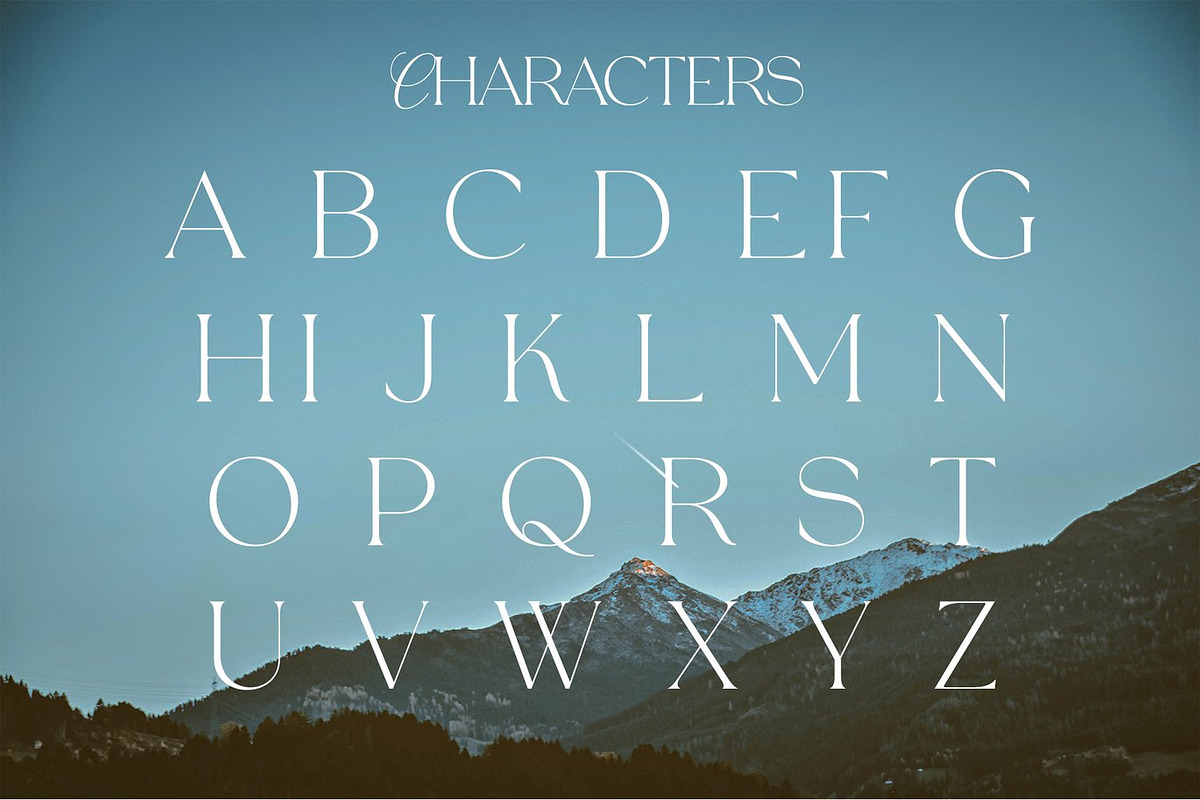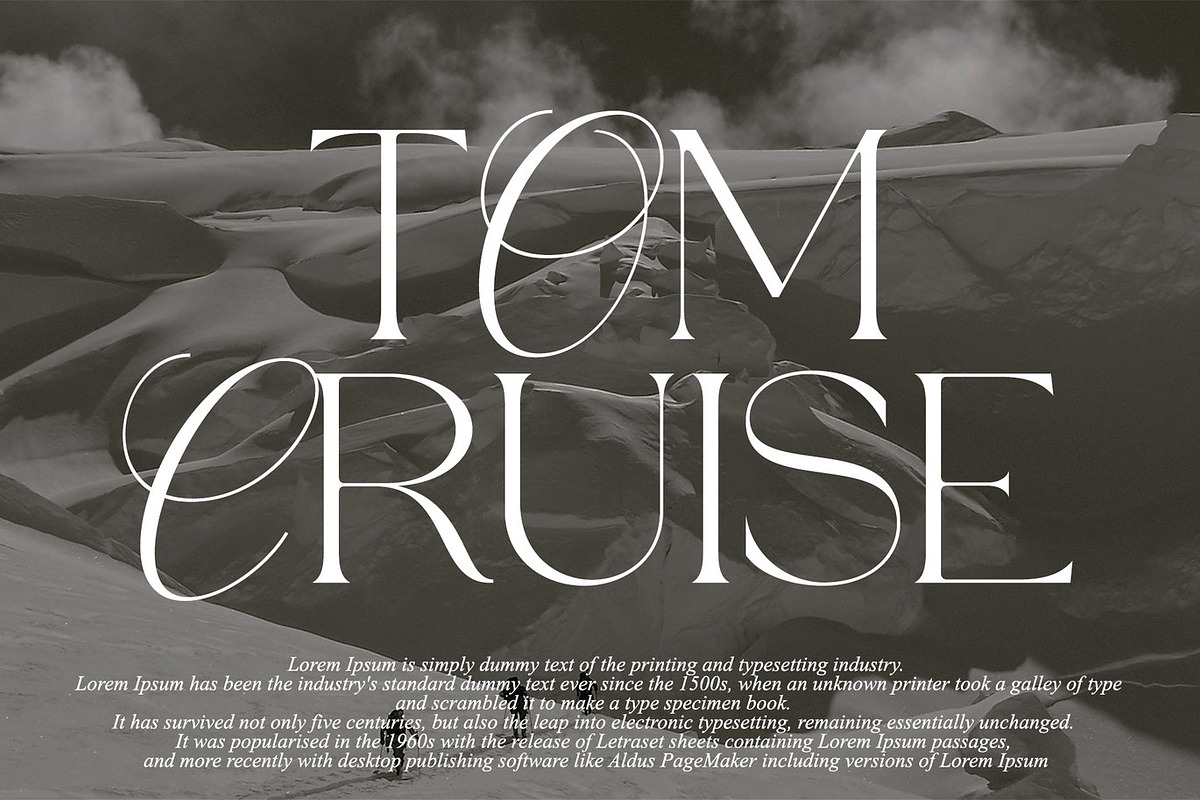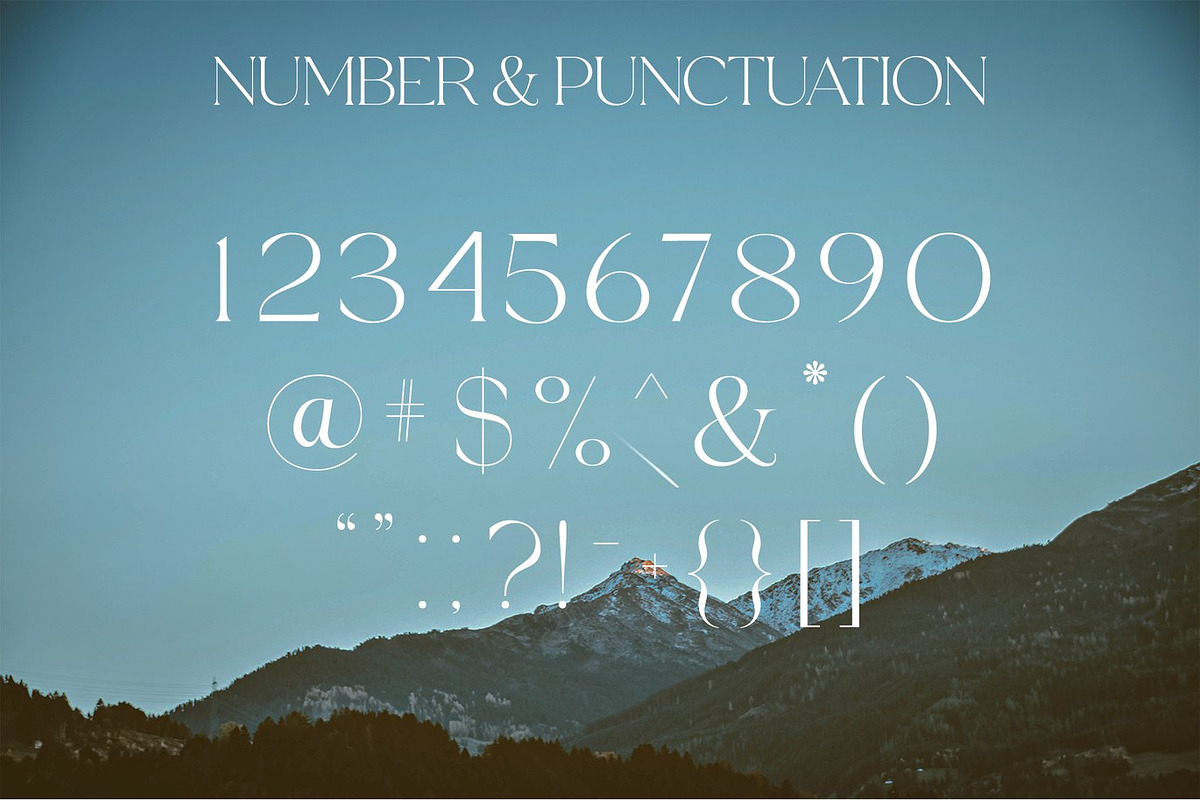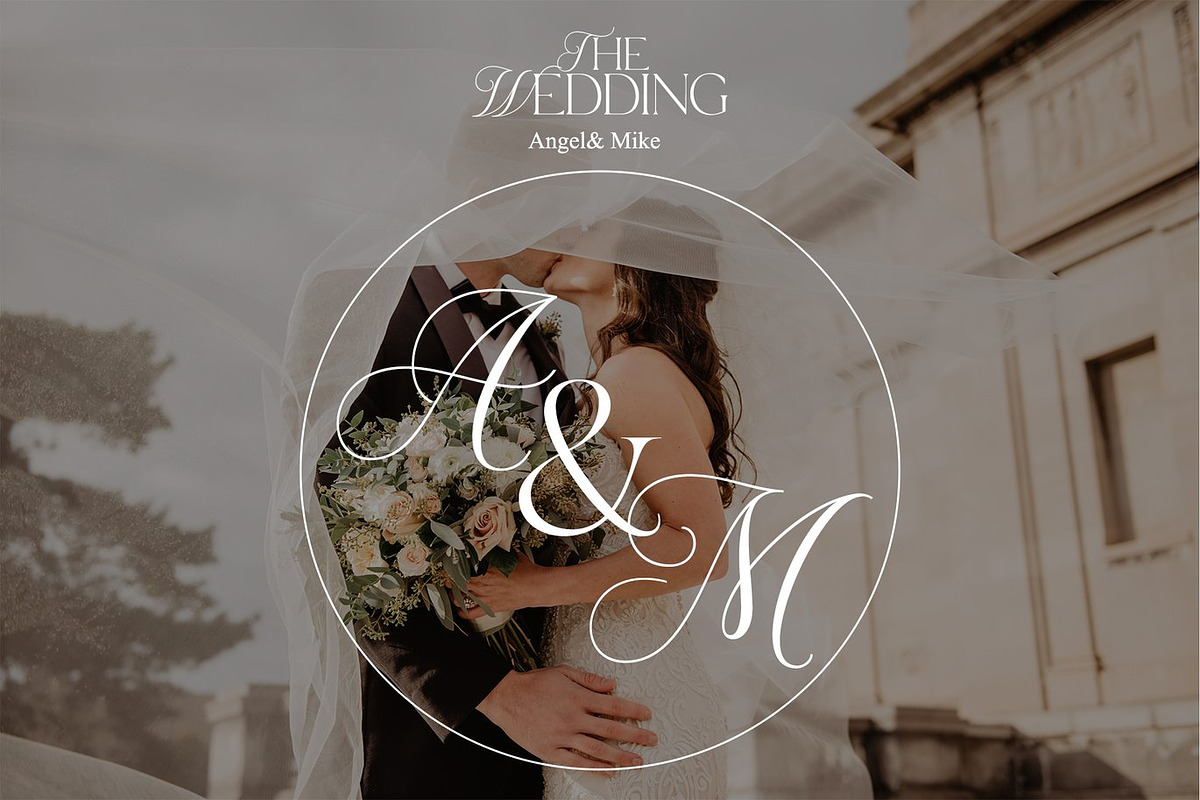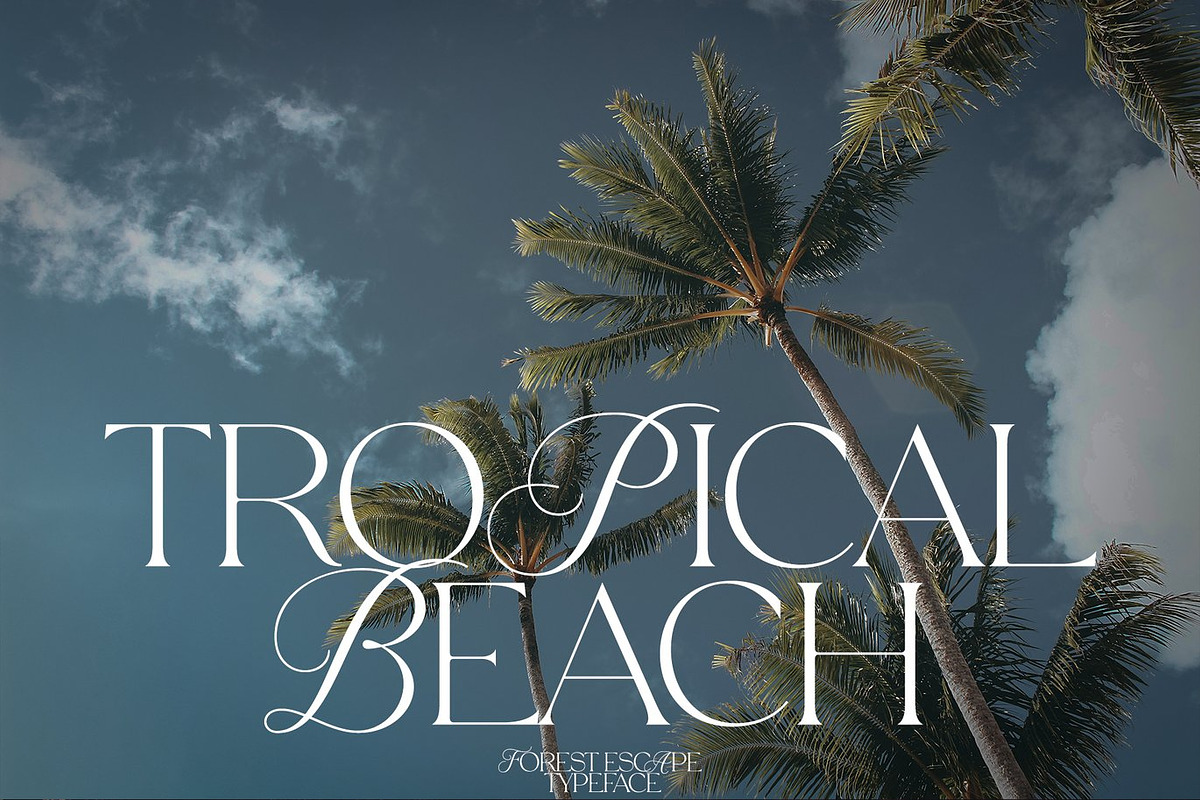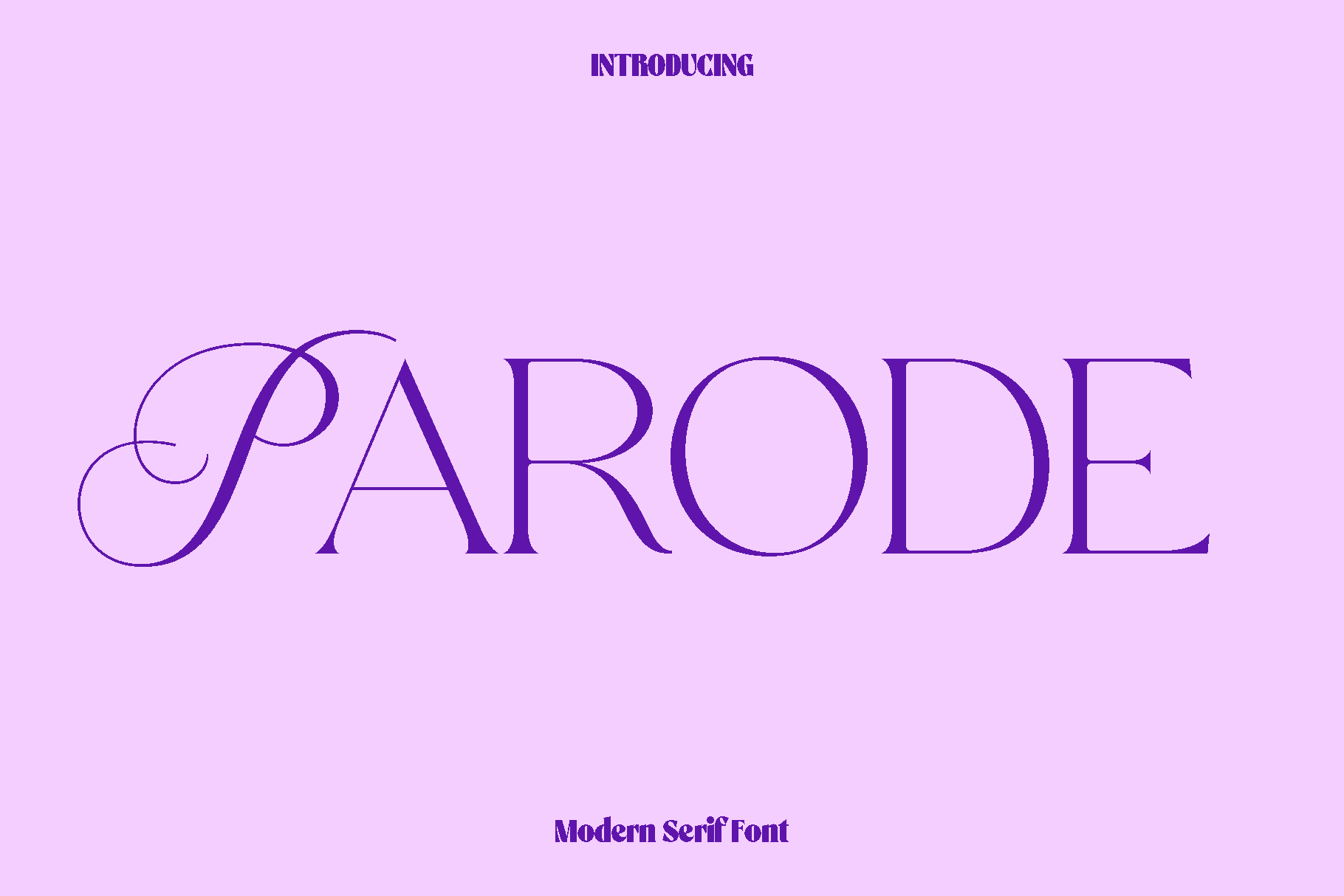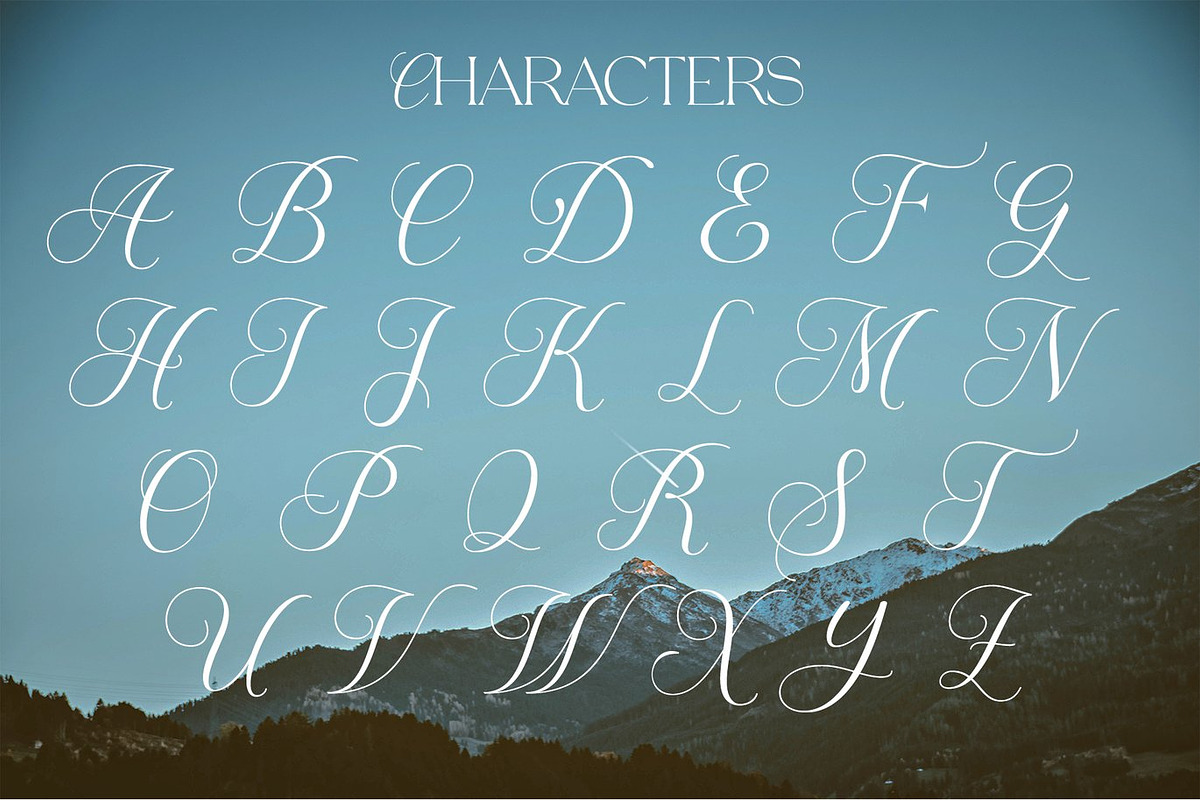
Parode - Modern Serif Font
Parode is a modern serif font designed to express simplicity, elegance, and refined style. Created with a vision of balancing softness and structure, Parode carries a subtle feminine touch while maintaining a clean and contemporary appearance. Its graceful serifs and carefully shaped letterforms bring a sense of calm sophistication, making every word feel polished and thoughtfully crafted.
Inspired by modern editorial design and luxury branding trends, Parode shines in projects that require beauty with clarity. It works wonderfully for logos, fashion branding, wedding stationery, magazine layouts, social media graphics, and upscale packaging. The font’s stylish yet minimal character allows it to adapt seamlessly to both delicate and bold compositions, giving designers flexibility without losing visual charm.
Parode feels elegant, modern, and approachable. It enhances designs with a luxurious impression while keeping readability intact, whether used for headlines or supporting text. This makes it an excellent choice for creative projects that aim to communicate grace, confidence, and timeless appeal.
Parode Modern Serif Font Features:
• Uppercase characters
• Lowercase characters
• Numerals
• Functional punctuation and symbols
• Multilingual support